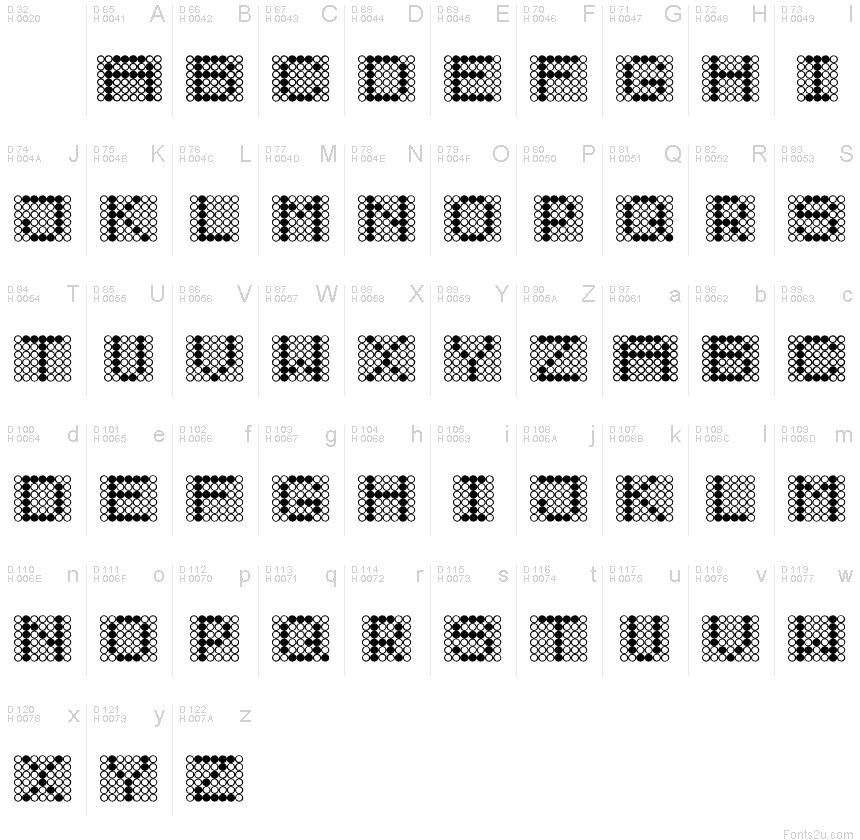
Diodos
Diodos font by Joakim Kihlström is a free digital display typeface that turns every letter into a grid of tiny diode-like circles, some inked in solid black and others left as clean white apertures. The result feels like a glowing LED ticker or a retro synth equalizer, with a steady, mechanical rhythm that still reads clearly when scaled up. It’s bold, tactile, and slightly hypnotic, as if your text is pulsing through a circuit board.
Using Diodos, you can give posters, tech event graphics, electronic music covers, arcade-inspired logos, festival wayfinding, motion graphics, and sci‑fi title cards a sharp, electronic edge. This free font shines when used large, where each dot stays crisp and distinct, and it pairs well with a plain geometric sans set small for supporting text.